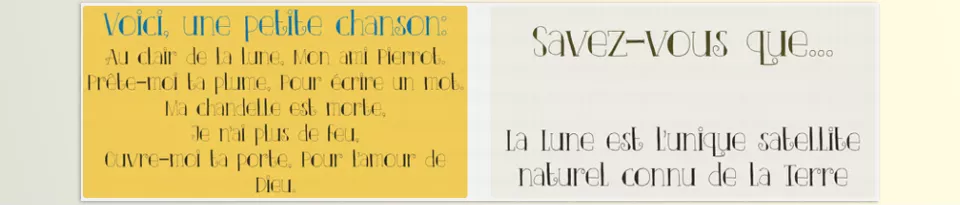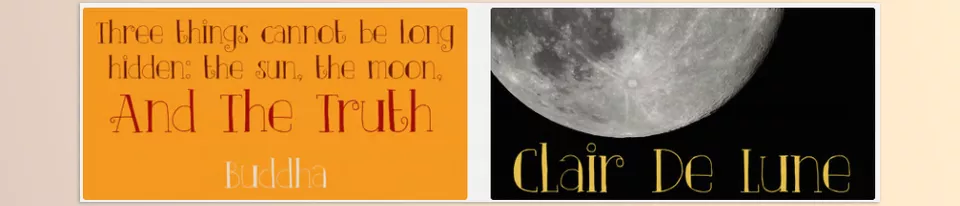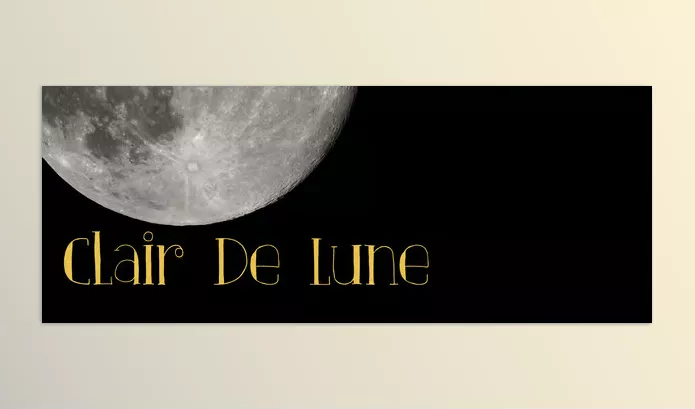
Clair De Lune Font Family: Whimsical as its namesake composition by Debussy, the Clair De Lune font family is perfect for postcards, posters, and websites that are meant to illuminate the recipient’s day with joy and a personal touch.
- Whimsical as its namesake composition by Debussy, the font family shines on postcards, posters, and web design.
- These pieces of writing are meant to illuminate the recipient’s day with joy and a personal touch.
- A handmade feel guarantees these fonts will never be replicated.
- These charming fonts will stand out because they were crafted with a 0.5 pen on eco-friendly Italian paper.
Preview Clair De Lune Font Family
Image 1: Add a touch of joy and personality to every page you create.
Image 2: Perfect for cheerful messages, cozy designs, and heartfelt notes.